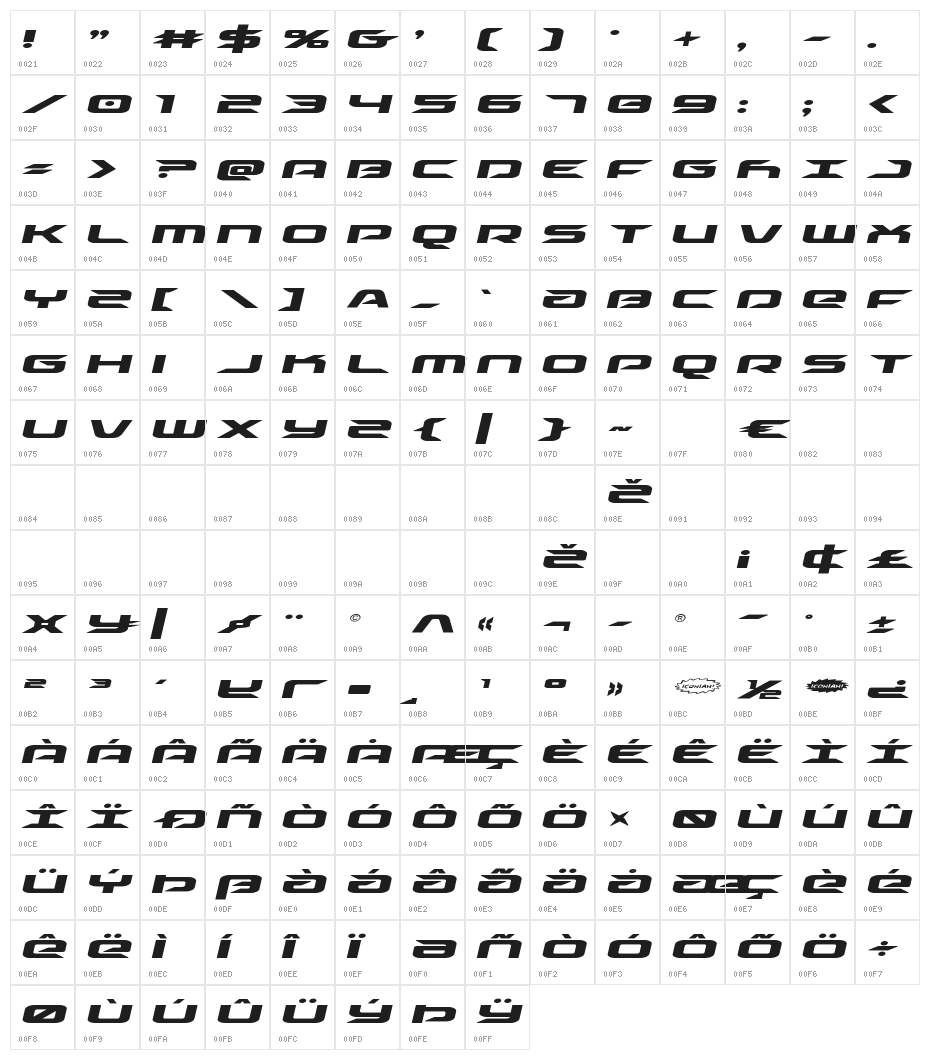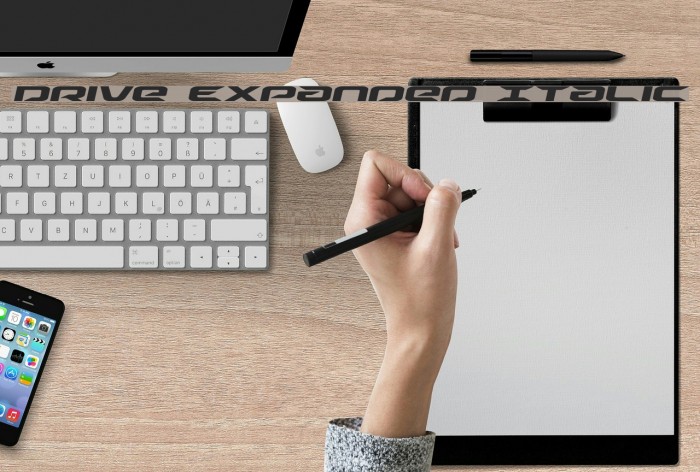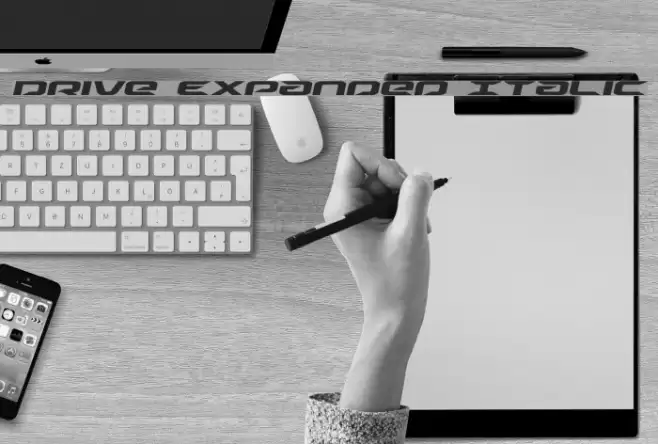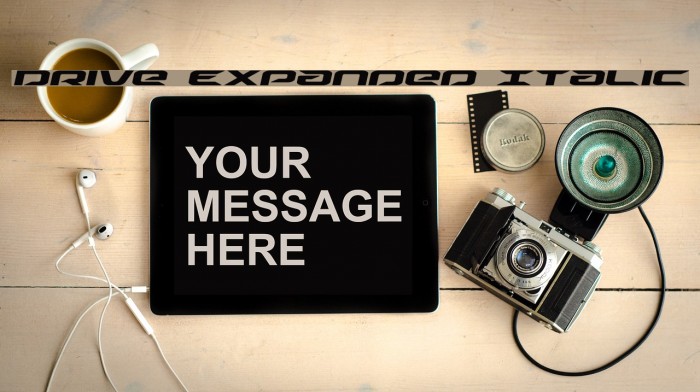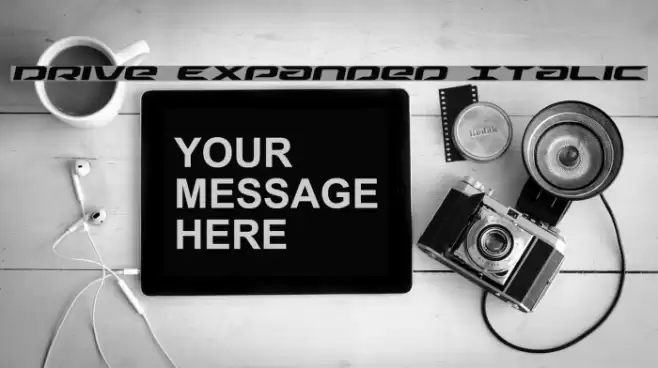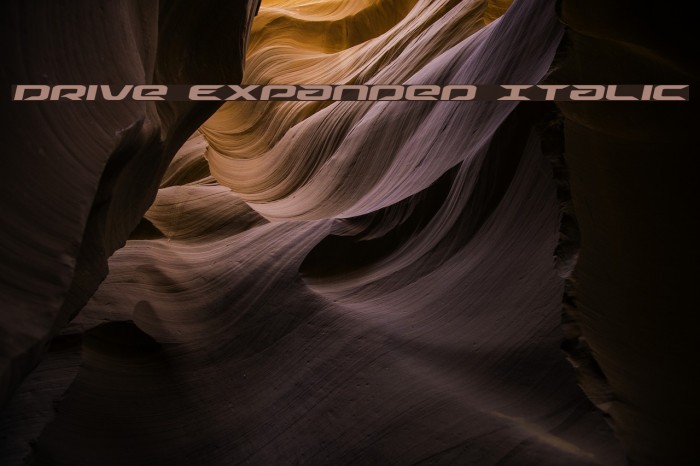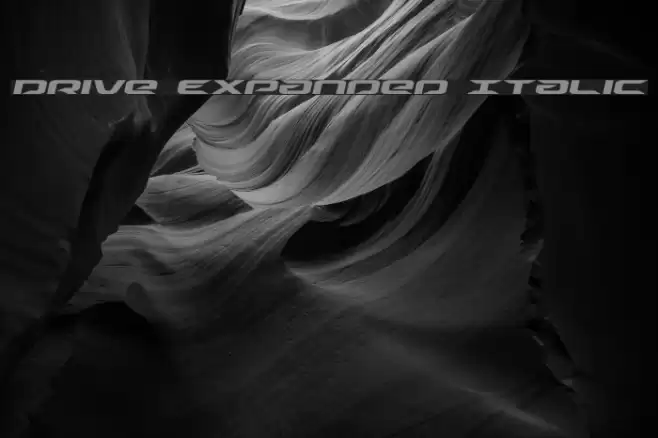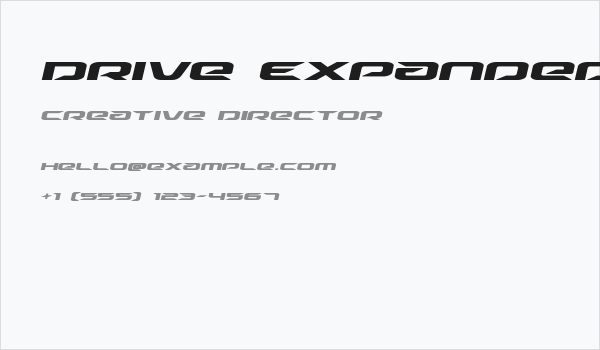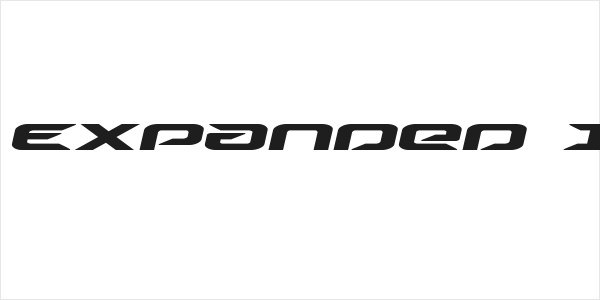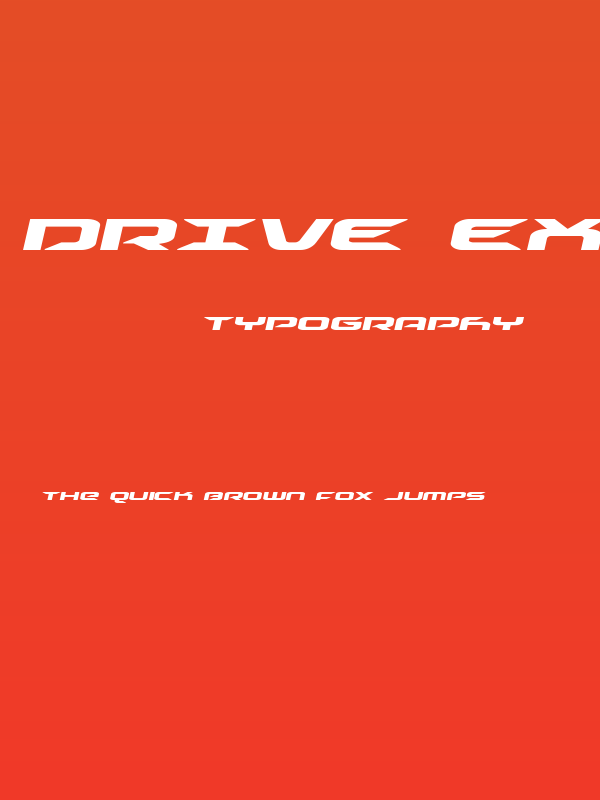
Drive Expanded Italic Font
Drive Expanded Italic Description
This font features a futuristic and dynamic design, characterized by its expanded and italicized style. The letters are bold and angular, with sharp edges and a sleek appearance that conveys a sense of speed and modernity. The uppercase and lowercase letters maintain a consistent style, with a slight slant that enhances the italic effect. The numbers and special characters are designed to match the overall aesthetic, ensuring a cohesive look across all elements. The font's unique style makes it stand out, suitable for projects that require a bold and contemporary look.
| Proposed Projects | Ideal for automotive branding, tech-related projects, video game titles, and sports team logos. |